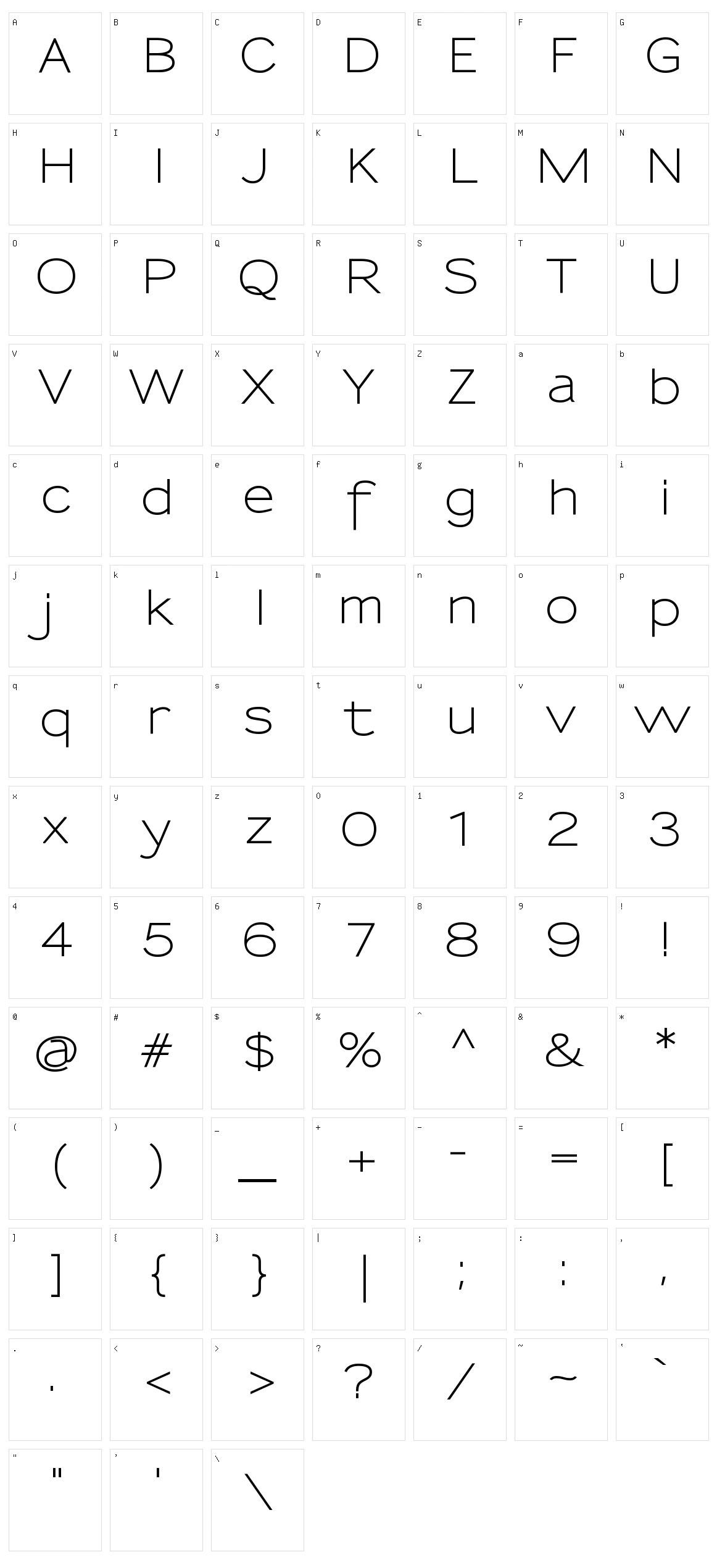
The free font Sansumi is carefully designed by Manfred Klein, showcasing a thoughtful balance of creativity and usability and falls under the Sans serif font style. When you download the ZIP file, it contains only 140.62 KB of font files, making it lightweight and quick to download. Please review the license details below to understand permitted usage and distribution rights. If license information is not available, we recommend using this font for personal projects only or contacting the author directly for commercial usage permissions.